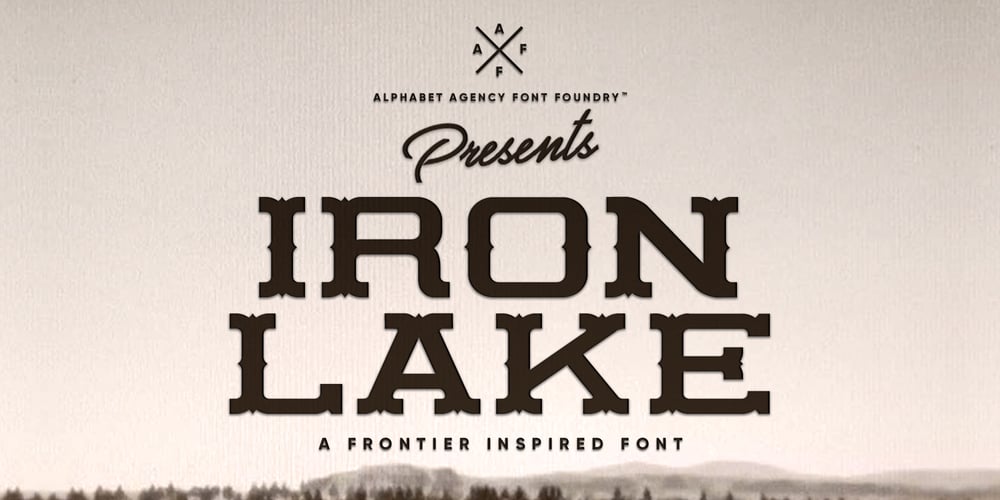
Iron Lake Font Family was designed by Swinn Jonathan and published by Alphabet Agency. Iron Lake contains 1 styles and family package options. Iron Lake is inspired by the pioneer era. The font has a decorative slab serif that really gives the font its vintage western look.The font works great for vintage, western, country, outdoors and rural themes.